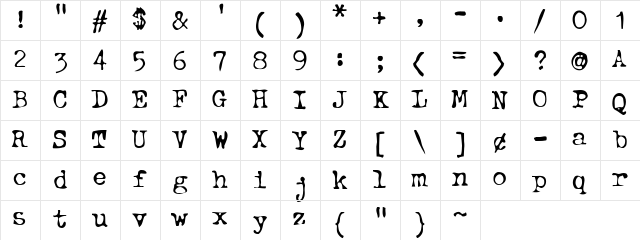
btd BeezWax Regular
| Foundry | bigtoedesigns / Michael Brittain |
| Designer | Michael Brittain |
Design Context for btd BeezWax Typeface
btd BeezWax takes a measured approach to typography — its balanced proportions and neutral character make it a reliable workhorse for both digital and print work.